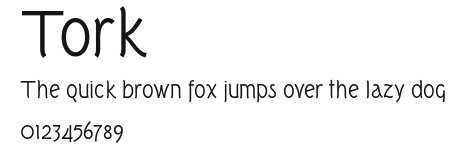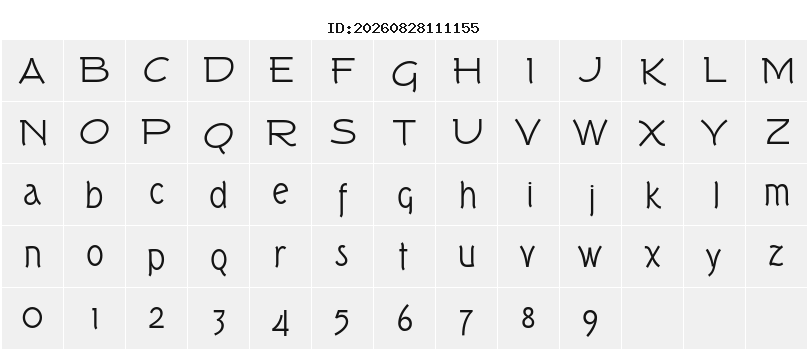
Tork Preview
• Font Name: Tork
• Font ID: 4.000;TYPO;Tork-Regular
• Full Font Name: Tork-Regular
• Version: Version 4.000
• PostScript Name: Tork-Regular
• Character Count: 365
• Designer: Ray Larabie
• Manufacturer: Ray Larabie
About Tork.ttf
Tork.ttf is a modern, elegant sans-serif font designed for ultimate readability and visual harmony. Perfect for branding, headlines, web design, and print materials.